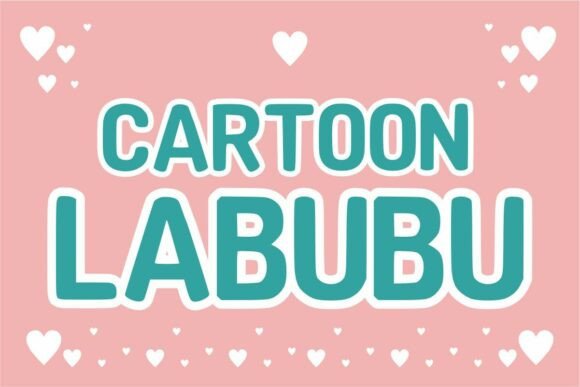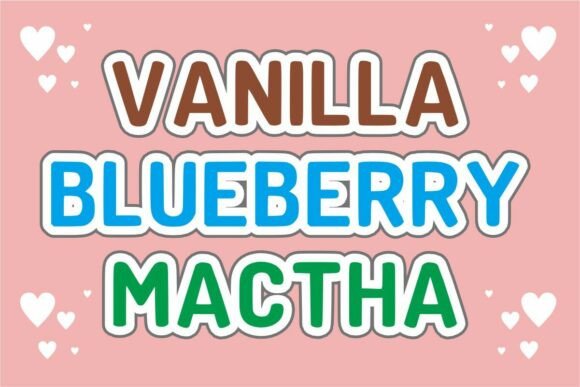
Introducing Butterscotch Bubble Font: The Perfect Addition to Your Design Arsenal
Are you a designer or crafter looking for a bold and modern font to elevate your creative projects? Look no further than Butterscotch Bubble Font! This exciting new font is a fresh take on the classic Butterscotch design, offering a unique and eye-catching aesthetic that’s perfect for a wide range of applications.
What is Butterscotch Bubble Font?
Butterscotch Bubble Font is a bold, modern take on the Butterscotch Bubble font. It’s ready to use in any project, making it an incredibly versatile addition to your design toolkit. With its clean lines, rounded edges, and playful bubble-inspired aesthetic, this font is sure to capture attention and leave a lasting impression.
Butterscotch Bubble Font is perfect for a wide range of creative projects, including:
- Logos: Create a bold and memorable logo for your brand or business with Butterscotch Bubble Font.
- Stickers: Add a fun and playful touch to your stickers with this eye-catching font.
- Packaging designs: Elevate your product packaging with a modern and sophisticated font that’s sure to stand out on store shelves.
- Cricut projects: Use Butterscotch Bubble Font to add a personal touch to your Cricut projects, from custom vinyl decals to intricate paper crafts.
- News editors: Add a touch of personality to your news articles and editorials with this bold and modern font.
- Comics: Bring your comic book characters to life with Butterscotch Bubble Font, perfect for speech bubbles and captions.
- Brand identities: Establish a strong brand identity with a custom font that’s both modern and memorable.
- T-shirt or apparel industry: Create eye-catching apparel with Butterscotch Bubble Font, perfect for t-shirts, hoodies, and more.
- Posters: Make a bold statement with your posters and flyers using this attention-grabbing font.
- Magazines: Add a touch of sophistication to your magazine layouts with Butterscotch Bubble Font.
- Cartoon books: Bring your cartoon characters to life with this fun and playful font.
- Instagram: Elevate your Instagram feed with custom graphics and quotes featuring Butterscotch Bubble Font.
- Websites: Use Butterscotch Bubble Font to add a personal touch to your website design, from headings to body text.
Why Choose Butterscotch Bubble Font?
So why choose Butterscotch Bubble Font for your next design project? Here are just a few reasons:
- Unique aesthetic: Butterscotch Bubble Font offers a fresh and unique take on the classic Butterscotch design, setting it apart from more traditional fonts.
- Versatility: This font is perfect for a wide range of projects, from logos and stickers to packaging designs and Cricut projects.
- Easy to use: Butterscotch Bubble Font is ready to use in any project, making it easy to incorporate into your design workflow.
- Attention-grabbing: With its bold and playful aesthetic, Butterscotch Bubble Font is sure to capture attention and leave a lasting impression.
Tips for Using Butterscotch Bubble Font
Here are a few tips for getting the most out of Butterscotch Bubble Font:
- Experiment with colors: Butterscotch Bubble Font looks great in a variety of colors, so don’t be afraid to experiment and find the perfect hue for your project.
- Play with sizes: This font looks great in a range of sizes, from small and delicate to large and bold.
- Mix and match: Try pairing Butterscotch Bubble Font with other fonts and design elements to create a unique and eye-catching aesthetic.
In conclusion, Butterscotch Bubble Font is a bold and modern take on the classic Butterscotch design, perfect for a wide range of creative projects. With its unique aesthetic, versatility, and ease of use, this font is sure to become a staple in your design toolkit. So why wait? Download Butterscotch Bubble Font today and start elevating your designs to the next level!